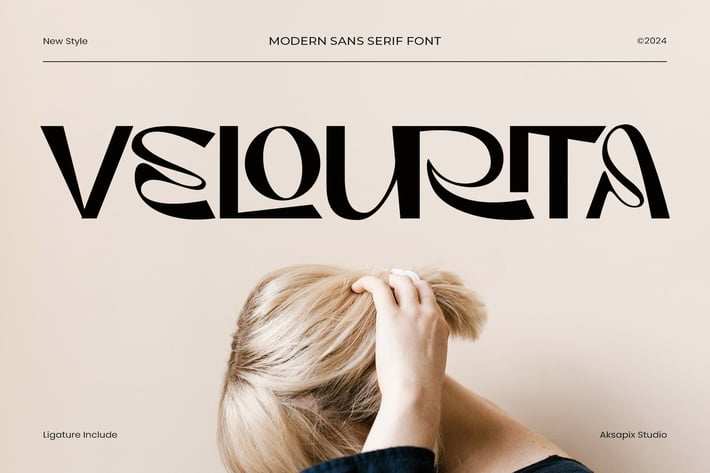
Velourita - Modern Sans Serif Font
Introducing Velourita - Modern Sans Serif Font, a sophisticated and versatile typeface perfect for bold design statements. This font includes uppercase, lowercase, punctuation, unique ligatures, and multilingual support, making it ideal for creating standout logotypes, eye-catching magazine headlines, and much more. With its elegant yet modern design, Velourita effortlessly blends classic serif style with contemporary flair.
Uppercase & Lowercase: A complete set of characters for diverse design applications.
Punctuation: Full set of punctuation marks for polished, professional designs.
Ligatures: Unique ligatures for creative and connected typography.
Multilingual Support: Ensures compatibility with various languages and regions.
Logotypes
Magazine Headlines
Fashion Branding
Luxury Packaging
Editorial Design
Add a touch of elegance and modernity to your projects with Velourita - Modern Display Serif. Whether you’re designing a chic logotype or crafting an editorial masterpiece, Velourita’s distinctive style will elevate your work.